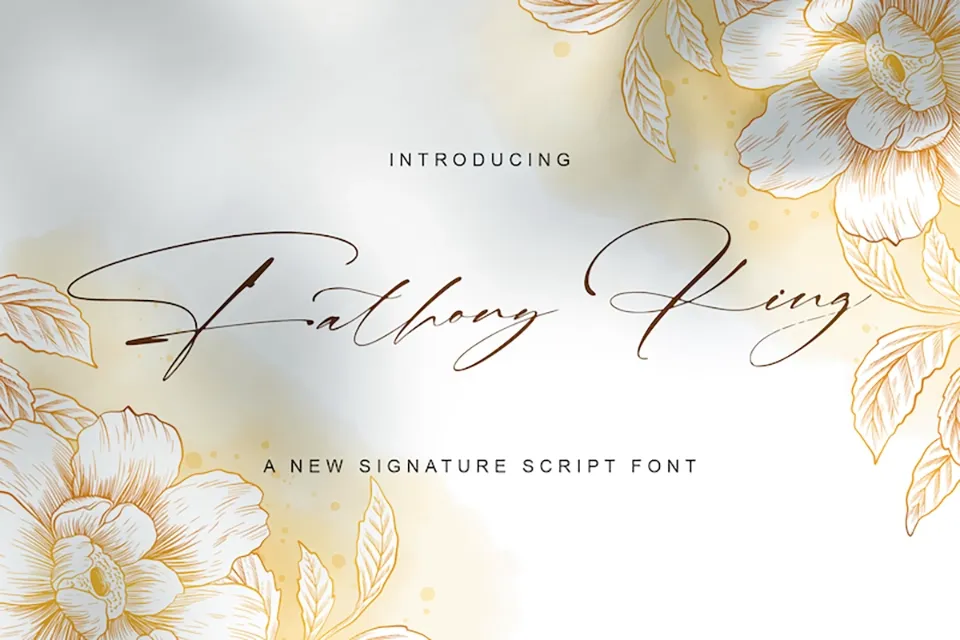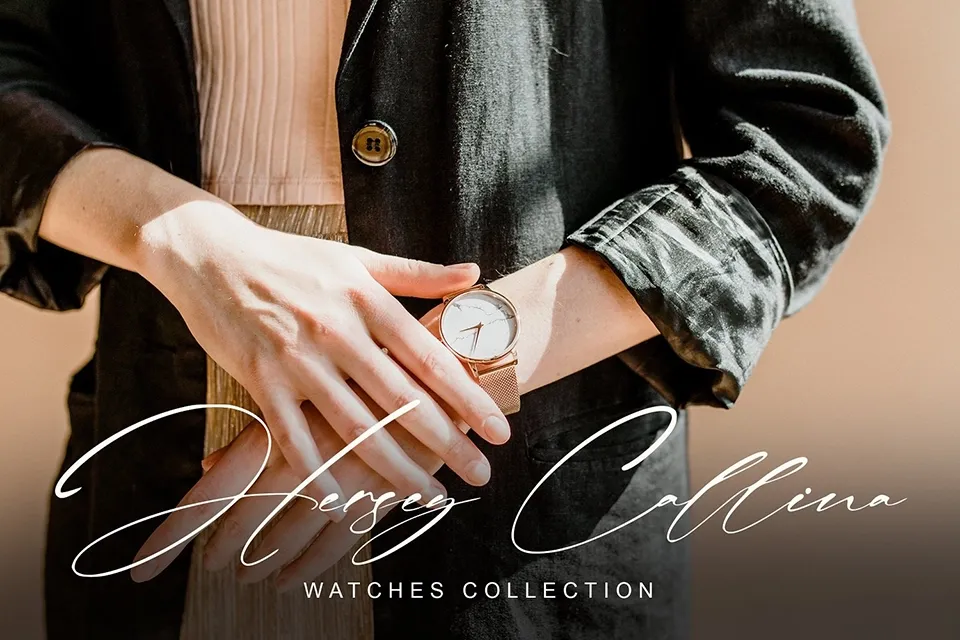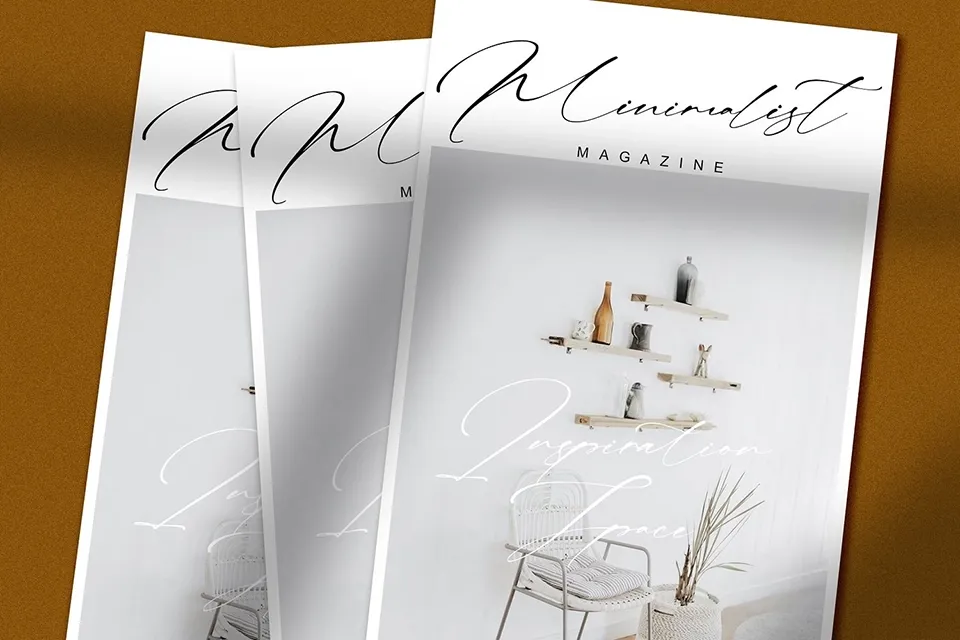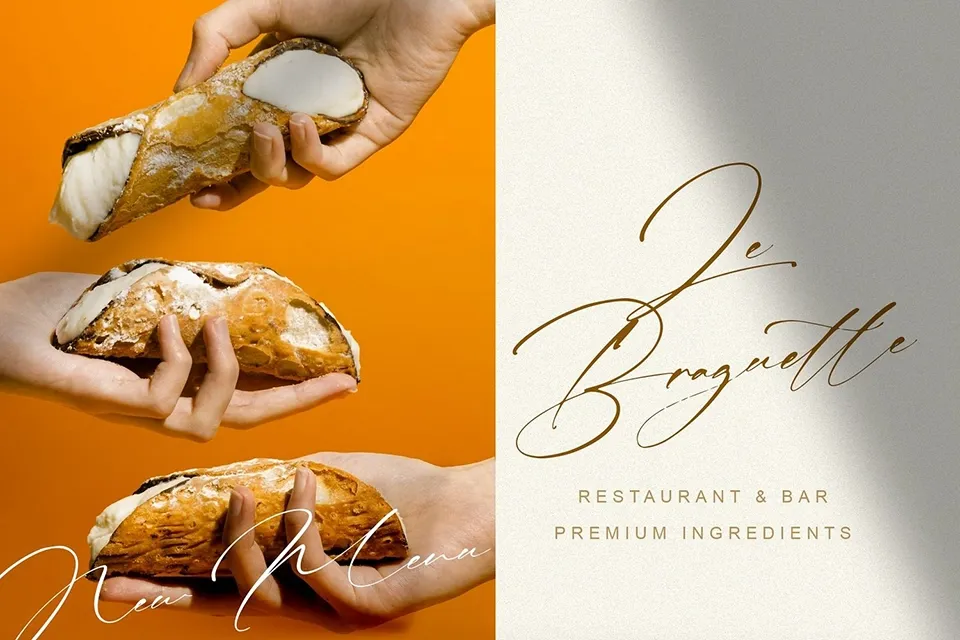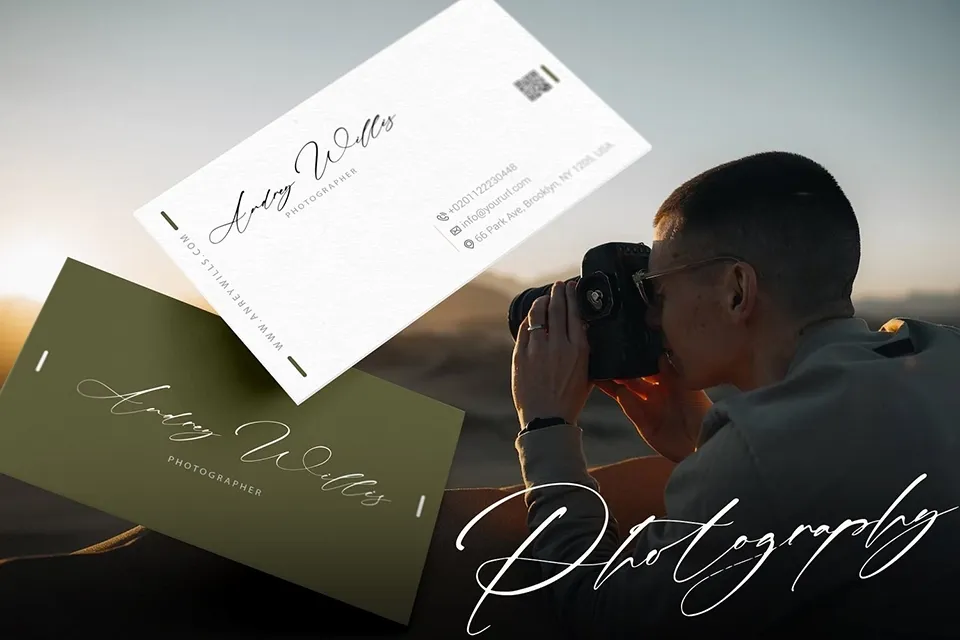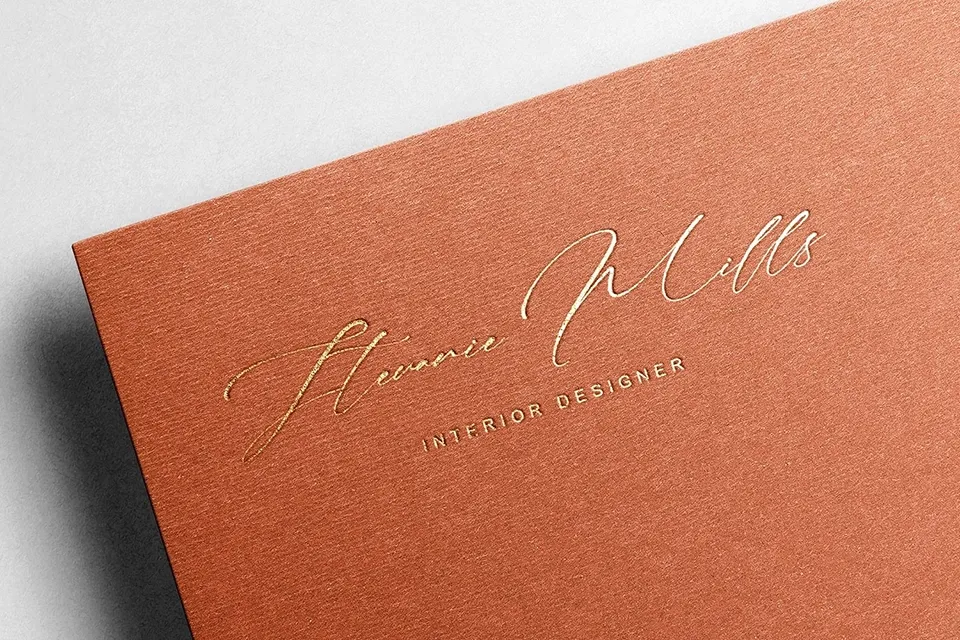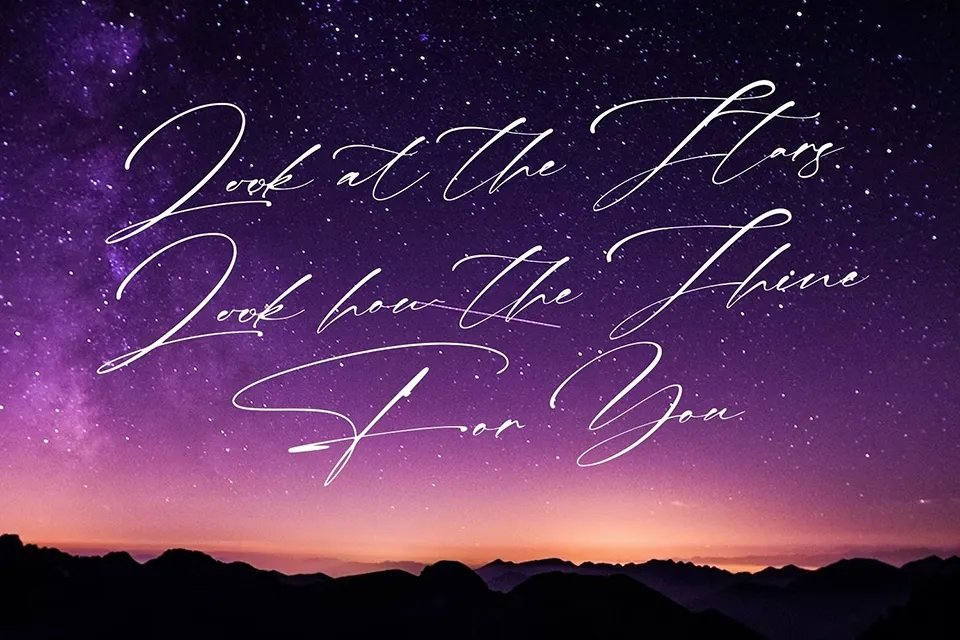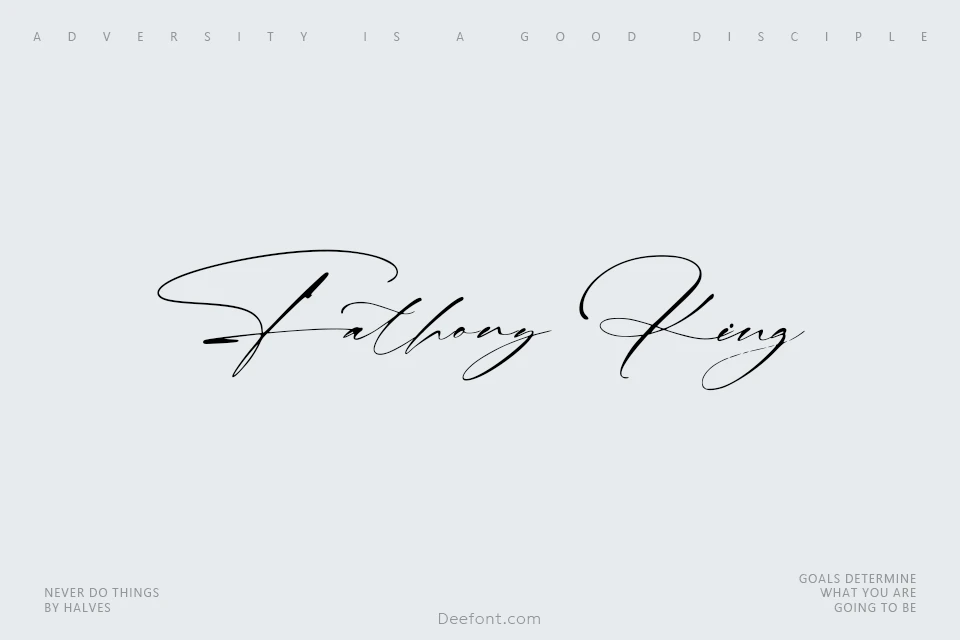
Fathony King Font
Fathony King Font is a luxurious and elegant signature script typeface designed to elevate your creative projects with sophistication and style. Featuring smooth, flowing lines and beautifully crafted letterforms, this font exudes a sense of refinement and artistry. Ideal for branding, wedding invitations, logos, social media designs, and stationery, Fathony King adds a personal and professional touch to any text. Its delicate yet bold strokes create a timeless aesthetic that balances modern flair with classic elegance. Perfect for designers seeking a graceful and expressive font, Fathony King brings charm and uniqueness to both digital and print designs.